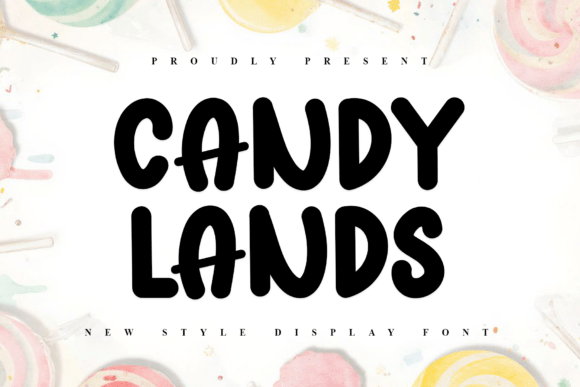
Candy Lands Font: The Sweetest Addition to Your Design Collection
Are you tired of using the same old fonts in your designs? Look no further than Candy Lands, a casual and creative font that’s sure to add a touch of warmth and friendliness to any project. With its round, playful strokes and charming, hand-drawn aesthetic, Candy Lands is the perfect choice for designers and crafters looking to add a fun and unique touch to their work.
The Perfect Font for Personal Projects
Candy Lands is a font that’s designed to make your designs feel more approachable and relaxed. Its casual vibe makes it perfect for personal projects, such as creating invitations, social media graphics, and other materials that require a friendly and welcoming tone. Whether you’re a designer, crafter, or simply someone who loves to create, Candy Lands is a font that’s sure to become a favorite in your collection.
A Font that’s Full of Character
One of the things that sets Candy Lands apart from other fonts is its charming, hand-drawn aesthetic. The font’s round, playful strokes are carefully crafted to create a sense of warmth and friendliness, making it perfect for designs that require a personal touch. Whether you’re creating a logo, a poster, or a social media graphic, Candy Lands is a font that’s sure to add a touch of character to your work.
Compatibility and Encoding
Why Designers and Crafters Love Candy Lands
So why do designers and crafters love Candy Lands? For one thing, the font’s casual and creative vibe makes it perfect for a wide range of design projects. Whether you’re creating a logo, a poster, or a social media graphic, Candy Lands is a font that’s sure to add a touch of personality and flair to your work. Additionally, the font’s hand-drawn aesthetic and charming character make it a joy to use, and its compatibility with a wide range of design applications makes it a versatile and practical choice.
Tips for Using Candy Lands in Your Designs
So how can you get the most out of Candy Lands in your designs? Here are a few tips to keep in mind:
- Use Candy Lands for headings and titles to add a touch of personality and flair to your designs.
- Pair Candy Lands with other fonts to create a unique and eye-catching combination.
- Use Candy Lands for personal projects, such as creating invitations and social media graphics.
In conclusion, Candy Lands is a font that’s sure to add a touch of warmth and friendliness to any design project. With its casual and creative vibe, charming hand-drawn aesthetic, and compatibility with a wide range of design applications, it’s the perfect choice for designers and crafters looking to add a fun and unique touch to their work. Whether you’re creating a logo, a poster, or a social media graphic, Candy Lands is a font that’s sure to become a favorite in your collection.
Get Ready to Add a Touch of Sweetness to Your Designs